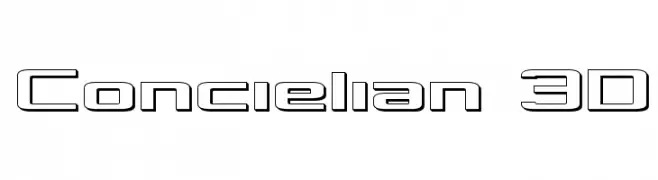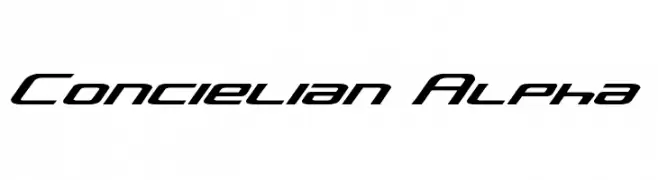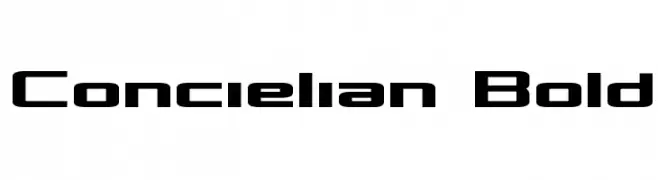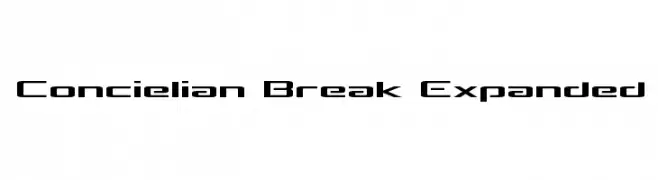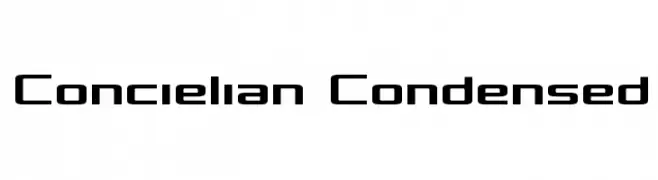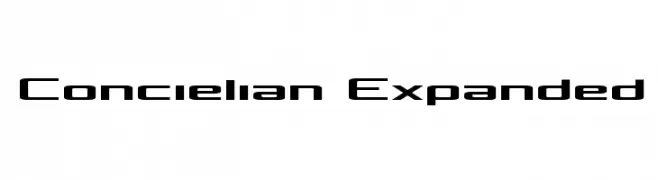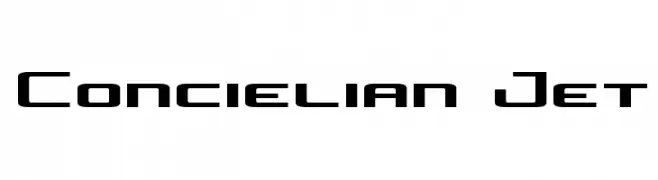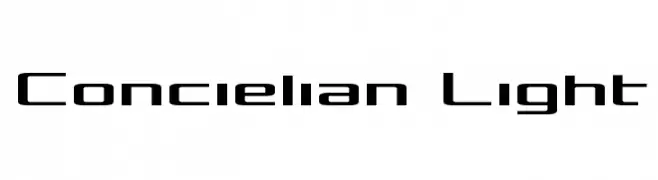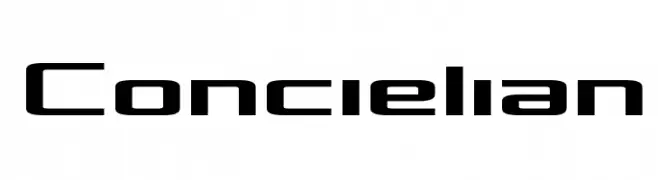
Concielian Bold Font
A bold, geometric font with a modern and futuristic style.
Concielian Bold Semi-Italic Font
A bold, semi-italic font with a modern and dynamic design.
Concielian Jet Font
A futuristic, geometric font with sharp edges and a modern aesthetic.
Concielian 3D Font
A 3D outline font with geometric precision and modern appeal.
Concielian Font
A modern, geometric font with a futuristic and sleek design.
Concielian Alpha Font
A sleek, futuristic font with angular, slanted characters.
Concielian Bold Italic Font
A bold, italicized font with a modern, dynamic style.
Concielian Classic Bold Font
A bold, italicized font with a modern, dynamic style.
Concielian Condensed Font
A modern, geometric font with a condensed structure and clean lines.
Concielian Condensed Semi-Italic Font
A modern, condensed, semi-italic font with medium contrast and sleek design.
Concielian Semi-Italic Font
A sleek, semi-italic font with a modern, dynamic style.
Concielian Break Font
A modern, geometric font with a futuristic and sleek design.
Concielian Expanded Font
A futuristic, geometric font with expanded letterforms and a tech-inspired design.
Concielian Classic Font
A sleek, modern font with a futuristic and dynamic design.
Concielian Italic Font
A modern, italicized font with a sleek and dynamic design.
Concielian Classic Condensed Font
A sleek, modern, and condensed font with a dynamic, italicized style.
Concielian Condensed Italic Font
A modern, condensed italic font with a sleek and dynamic style.
Concielian Jet Condensed Italic Font
A sleek, modern, condensed italic font with a dynamic and futuristic style.
Concielian Jet Condensed Font